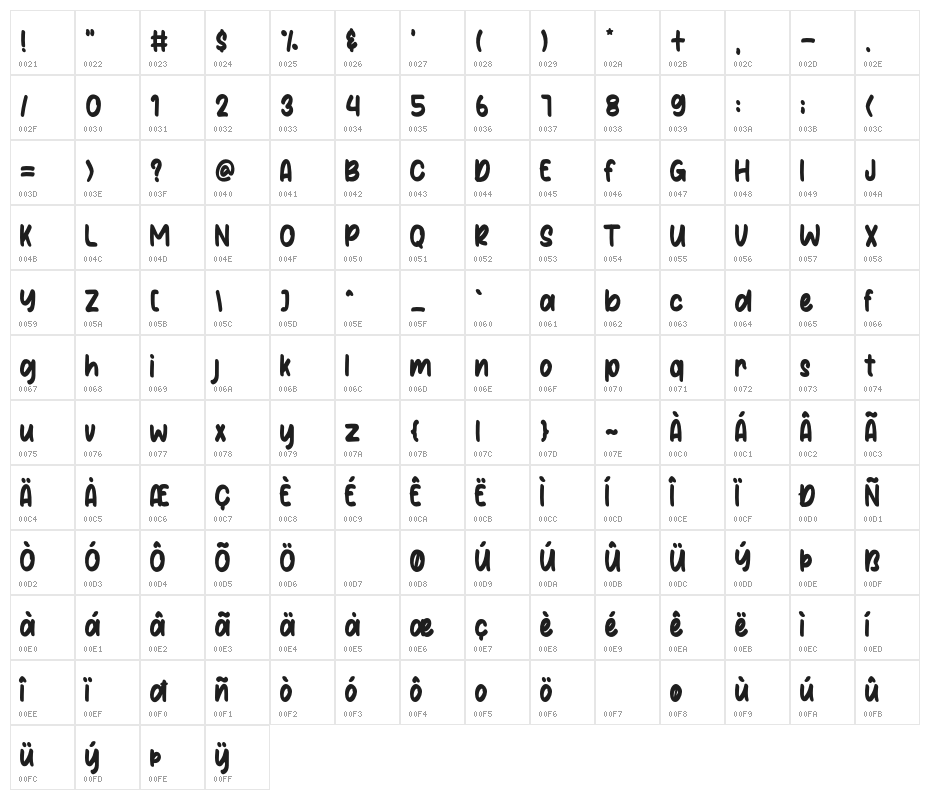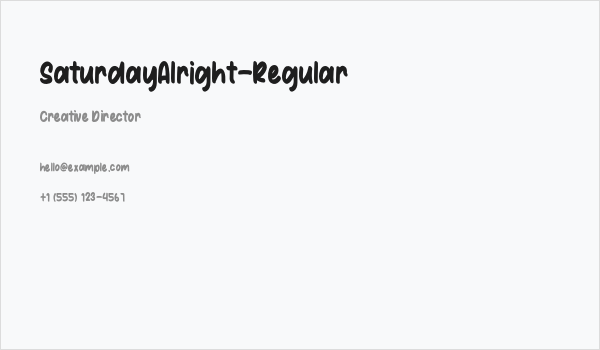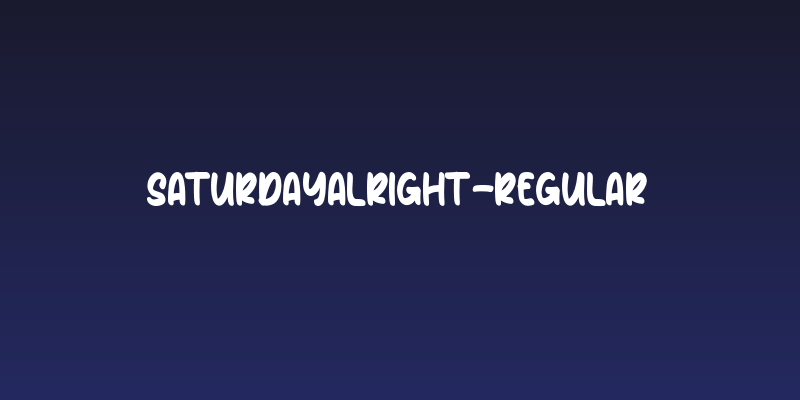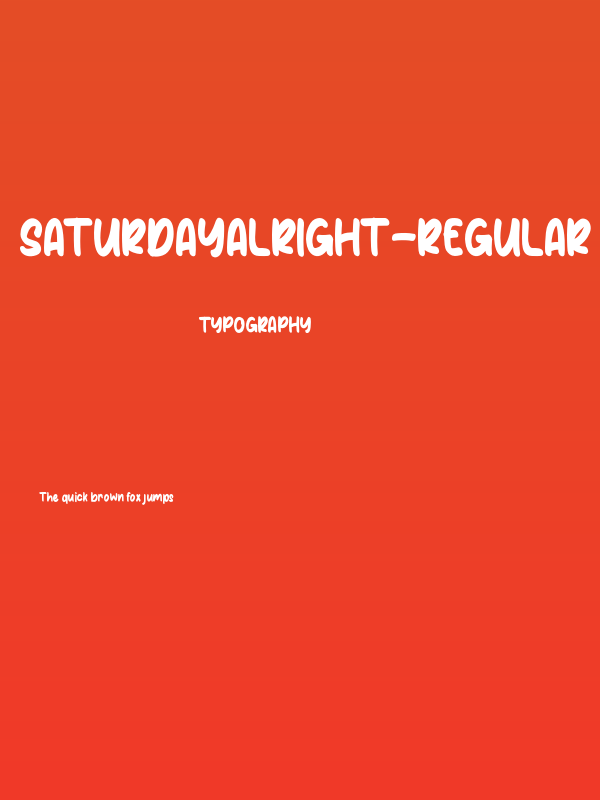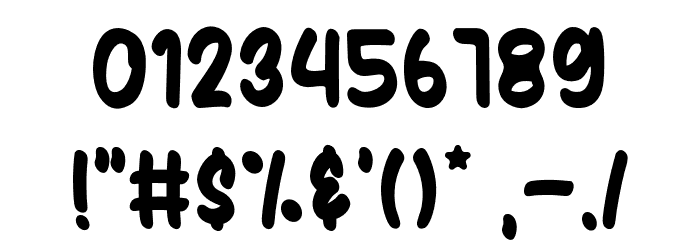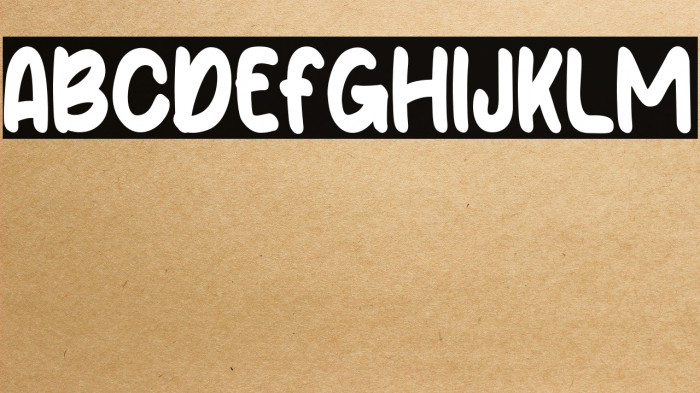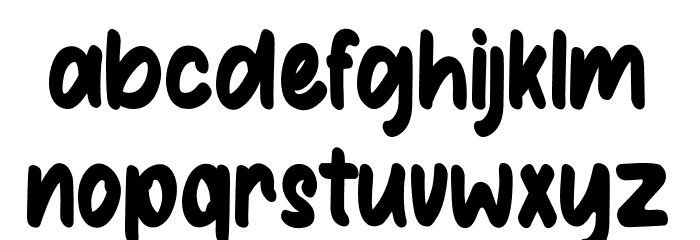
SaturdayAlright-Regular Font
SaturdayAlright-Regular Description
This font features a playful and bold style with rounded edges, giving it a friendly and approachable appearance. The characters are evenly weighted, providing a consistent look across both uppercase and lowercase letters. The numbers and special characters maintain the same playful aesthetic, making them suitable for various informal and creative applications. The overall design is clean yet whimsical, making it ideal for projects that require a touch of fun and personality.
| Proposed Projects | Ideal for children's books, playful branding, casual invitations, and creative posters. |